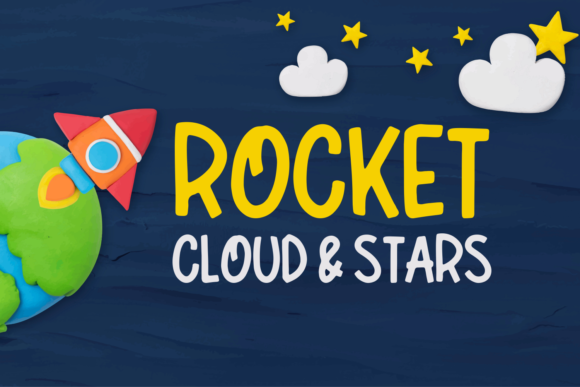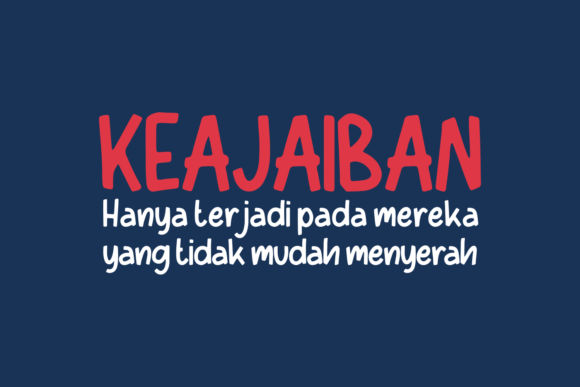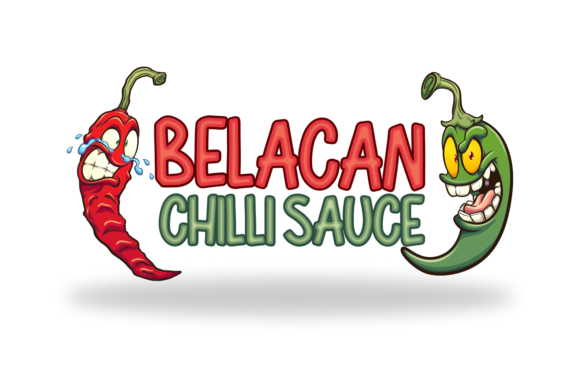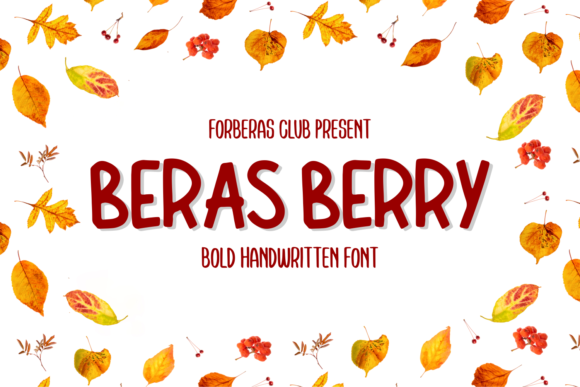
Introduction to Beras Berry Font
Beras Berry is a cute, playful, and fun display font.
Simple but with a strong visual effect, this font will instantly make your creation more appealing than any others .